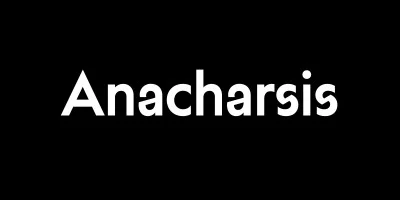
Anarcharsis Font
Anarcharsis Font is perfect for underground music posters, alternative magazine layouts, grunge-style branding, rebellious streetwear designs, punk rock album covers, independent film titles, artistic exhibition materials, counter-culture publications, edgy social media graphics, and avant-garde creative projects that demand unconventional visual expression.
What makes Anarcharsis Font truly exciting is its revolutionary spirit and artistic rebellion that challenges traditional typography conventions. This extraordinary typeface embodies the essence of creative freedom and intellectual anarchy, featuring unconventional letterforms and distinctive character shapes that break away from mainstream design rules. The font's philosophical depth and artistic integrity make it perfect for projects that need to convey independent thinking, creative rebellion, and authentic artistic expression.
The Anarcharsis Font family includes multiple variations and styles: Regular, Bold, Light, Distressed, and Experimental versions. Each family member maintains the distinctive anarchistic character while offering different levels of visual intensity and creative expression. The comprehensive character set supports extended typography needs and special symbols, making it suitable for diverse artistic applications.
When you choose Anarcharsis Font, you're selecting a typography revolution that transforms ordinary text into powerful artistic statements. This unique typeface excels in creative applications where conventional fonts fall short, delivering exceptional visual impact while maintaining readability. Whether you're designing album covers, art installations, publications, or digital media, this font provides the rebellious character and intellectual depth that resonates with audiences who appreciate authentic creative expression and philosophical freedom.